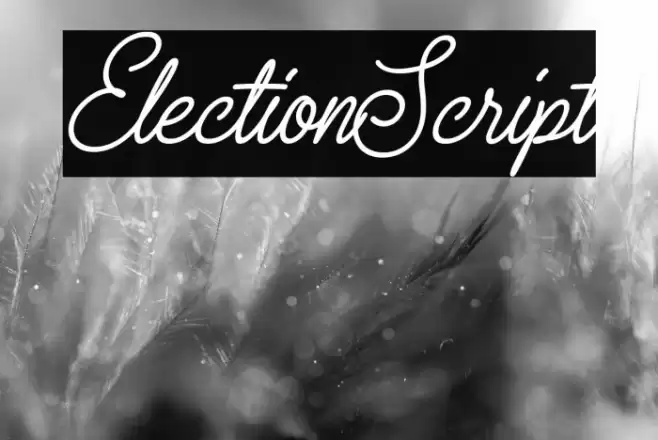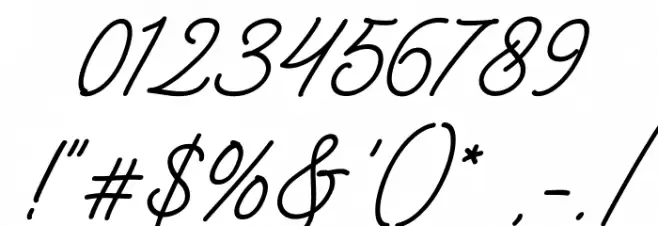
ElectionScript Font
ElectionScript Description
This elegant script font features flowing, connected letters that mimic the fluidity of cursive handwriting. The uppercase letters are ornate, with sweeping curves and loops that add a touch of sophistication. The lowercase letters maintain a consistent style, offering a smooth transition between characters. Numbers are styled to match the overall script aesthetic, providing a cohesive look. Special characters are thoughtfully designed to integrate seamlessly with the alphabet, enhancing the font's versatility. This font exudes a sense of grace and formality, making it ideal for projects that require a personal or elegant touch.
A graceful script font with flowing, connected letters and ornate uppercase characters from Regular fonts.
- Proposed Projects: Ideal for wedding invitations, elegant branding, personal stationery, and formal event programs.
- Overall Style: Elegant, Formal
- Use Case: Logos, Invitations, Personal Correspondence